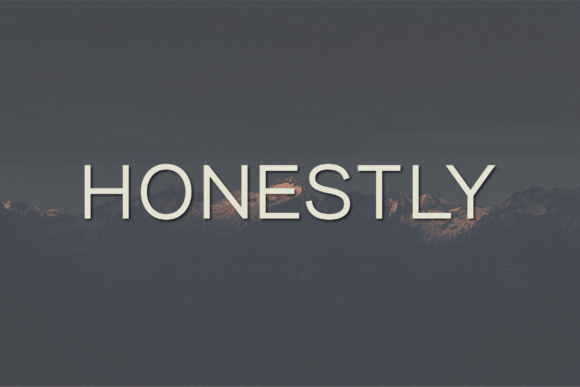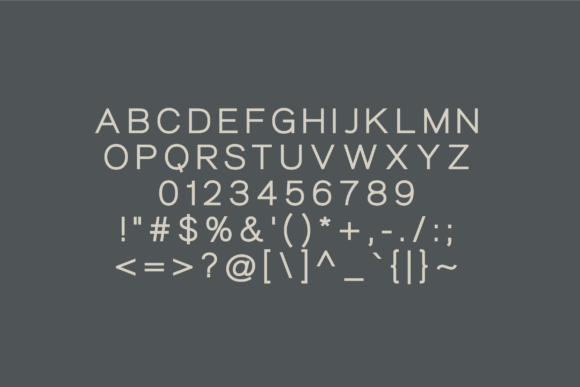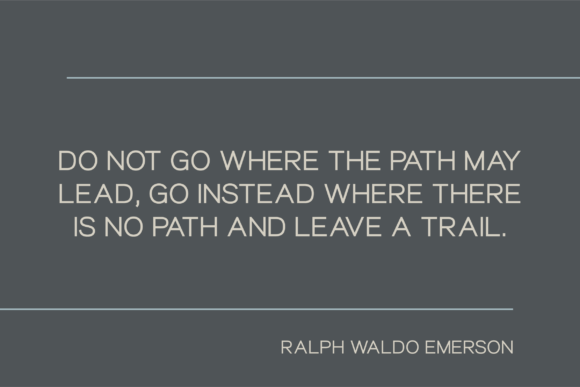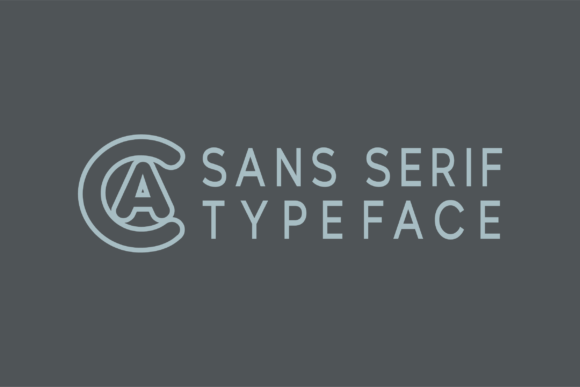
Unveiling the Perfect Typography: A Creative’s Dream
Have you ever been stuck on a design project, struggling to find the perfect font to convey your message? The frustration is real, but what if I told you that your search is over? As a designer, you know that the right font can make all the difference between a good design and a great one.
Enter Honestly Font, a chic, contemporary sans serif typeface designed to elevate your designs. This versatile toolkit is more than just a font – it’s a complete package that includes upper case characters, numbers, punctuation marks, and symbols. With Honestly Font, you’ll have the freedom to create stunning logos, wedding invitations, quotes, and advertisements that truly stand out. Whether you’re working on print media, magazines, or digital projects, Honestly Font is the perfect addition to your design arsenal.
Honestly Font Key Features
- Unique Characteristics: Honestly Font features a unique, modern design with clean lines and geometric shapes, making it perfect for contemporary designs and branding.
- Language Support: Honestly Font supports a wide range of languages, including Latin, Cyrillic, and Greek alphabets, as well as many non-Latin scripts.
- Scalability: Honestly Font is optimized for scalability, ensuring it looks great in both small and large font sizes, making it ideal for digital and print applications.
Design Review: Honestly Font
Honestly Font is a beautiful, modern sans-serif typeface that has a lot to offer. ✨ I love its clean lines and simplicity, making it perfect for digital interfaces and publications. The font is highly legible, even at smaller sizes, which is essential for user experience. The serif and sans-serif versions are also well-crafted, providing a clear distinction between the two.
- Legibility: As mentioned earlier, Honestly Font is highly legible, even at smaller sizes. This is a significant advantage for digital interfaces and publications.
- Consistency: The font’s clean lines and simplicity make it consistent across different sizes and styles.
- Scalability: Honestly Font is highly scalable, making it suitable for both digital and print applications.
However, I do have some reservations about Honestly Font. ⚠️ Firstly, the font may be too simple for certain applications, such as high-end branding or luxury publications. Additionally, the font’s lack of italic and bold versions may be a limitation for designers who require more flexibility.
Overall, I’m impressed with Honestly Font’s clean design and simplicity. While it may have some limitations, it’s a solid choice for digital interfaces and publications. With some additional features, it could be a top contender in the font market.
Tips for Getting the Most Out of Honestly Font
To get the most out of Honestly Font, use it for headings and titles to add a touch of elegance and sophistication to your designs. You can also use it for body text to create a clean and modern look. Experiment with different font sizes and combinations to find the perfect balance for your design.
Common Use Cases for Honestly Font
Honestly Font is perfect for creating modern and elegant designs, such as:
- Web design and landing pages
Alternatives to Honestly Font
Monserrant is a modern sans-serif font designed by Julieta Ulanovsky. It is a great alternative to Honestly Font for digital designs such as web pages, mobile apps, and video games. Montserrat is more geometric and has a stronger grid-based structure compared to Honestly Font, making it ideal for digital displays.
Q: Can I customize Honestly Font to fit my design needs?
Yes, Honestly Font is highly customizable. It supports various font features, including ligatures, stylistic sets, and language-specific glyphs. You can also use font editing software to customize the font’s metrics, spacing, and other properties to suit your design requirements.